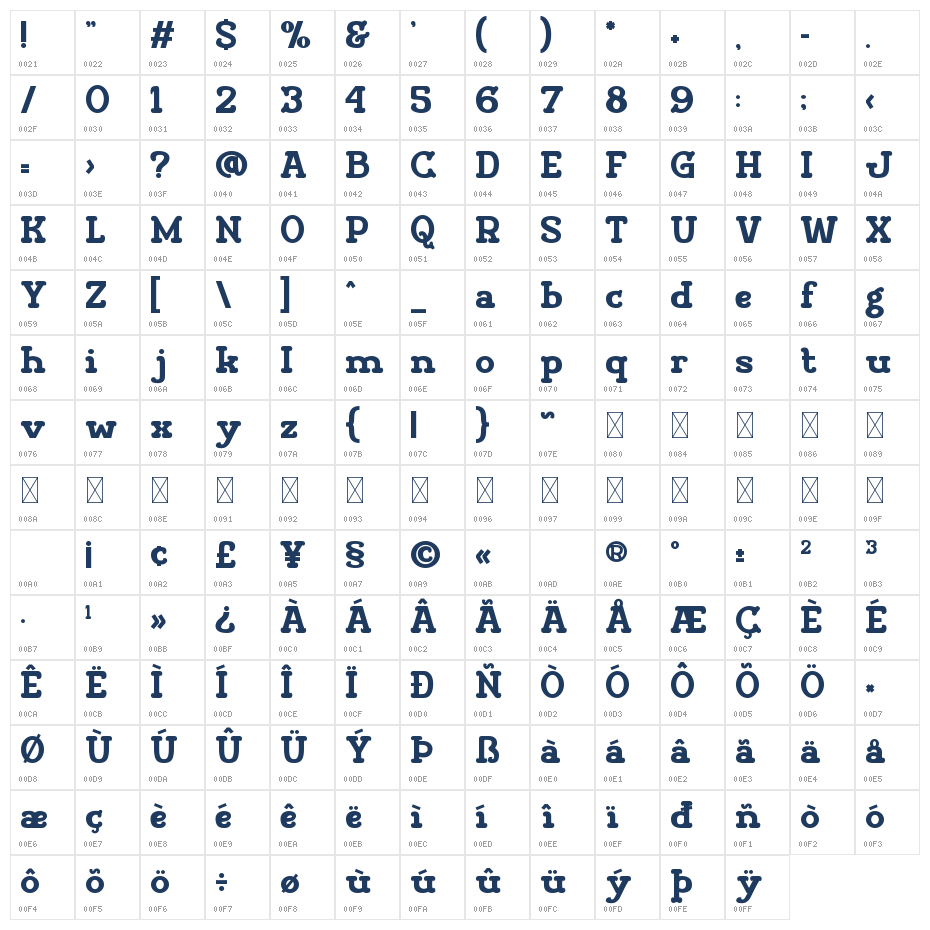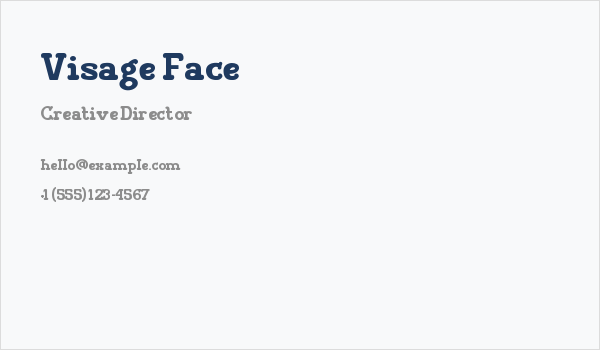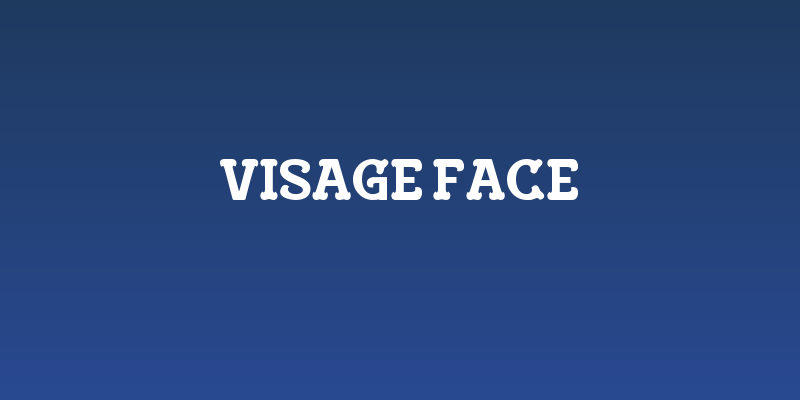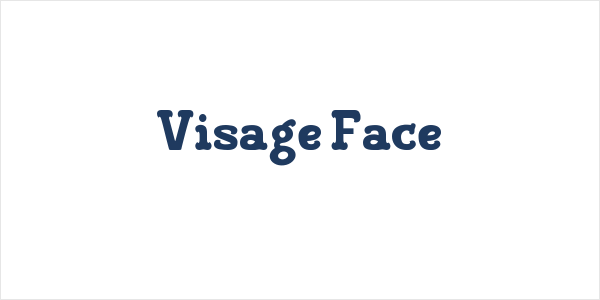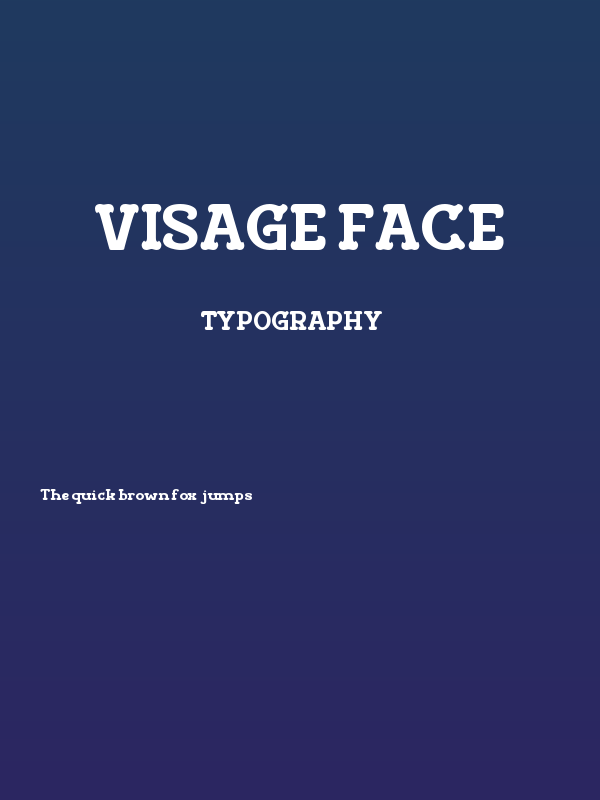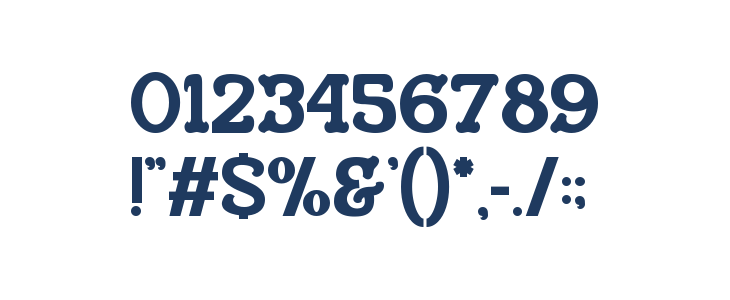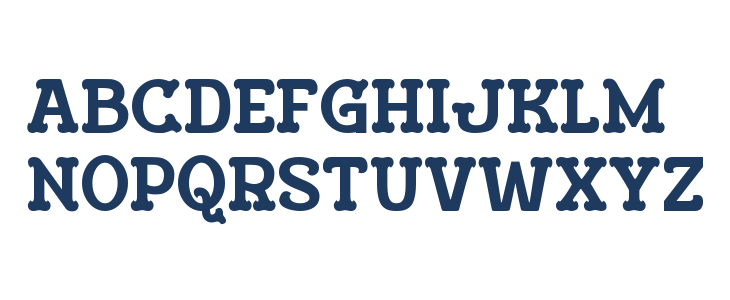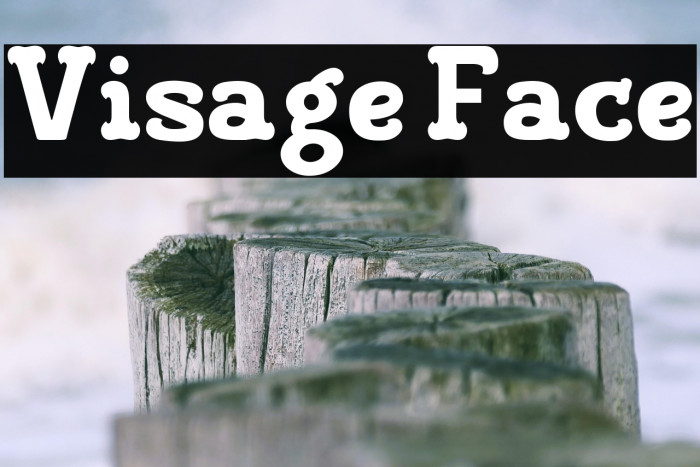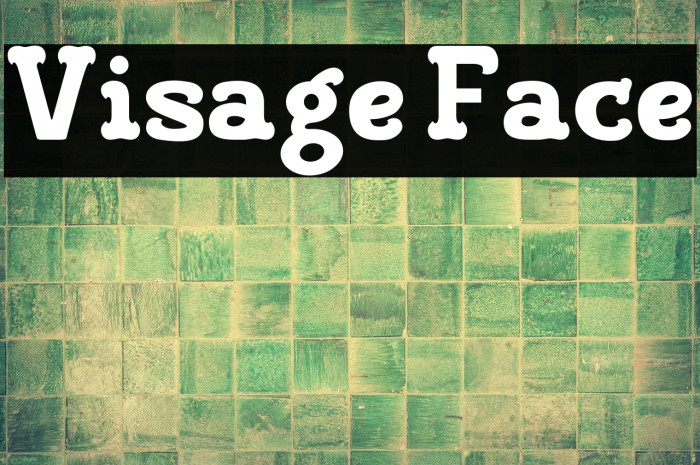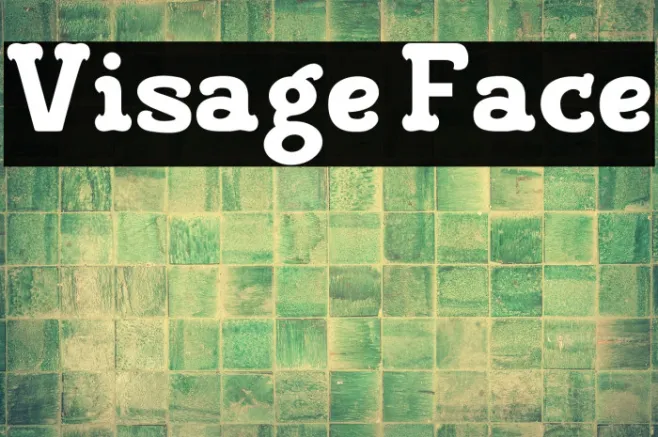
Visage Face Font
Visage Face Description
A bold, rounded serif font with a vintage, playful style. The characters have thick strokes with slight curves and decorative elements, giving it a friendly and approachable appearance.
| Overall Style | Vintage, Playful, Retro |
| Use Case | Headlines, Logos, Posters, Packaging |